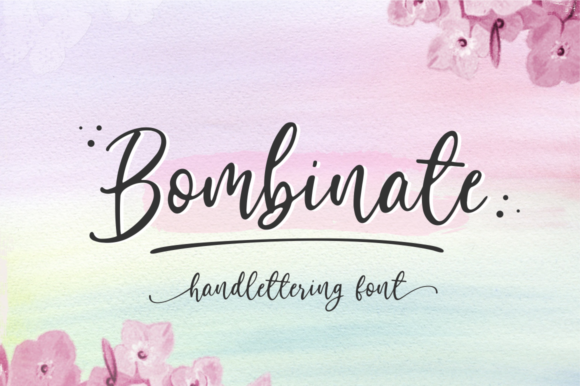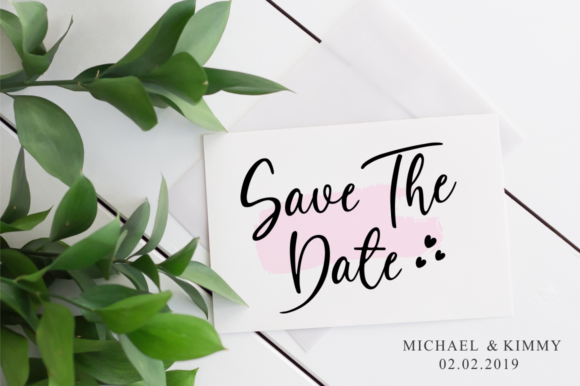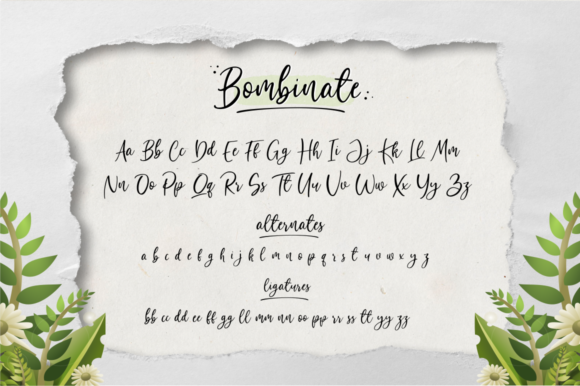
About Bombinate Font
The Bombinate is a fresh & modern font. Its handwritten style gives it a natural and elegant feel, and makes it perfect for every design which needs to look upscale and chic.
It’s perfect for many different project such as logos & branding, invitations, stationery, wedding designs, social media posts, advertisements, product packaging, product designs, and much more!